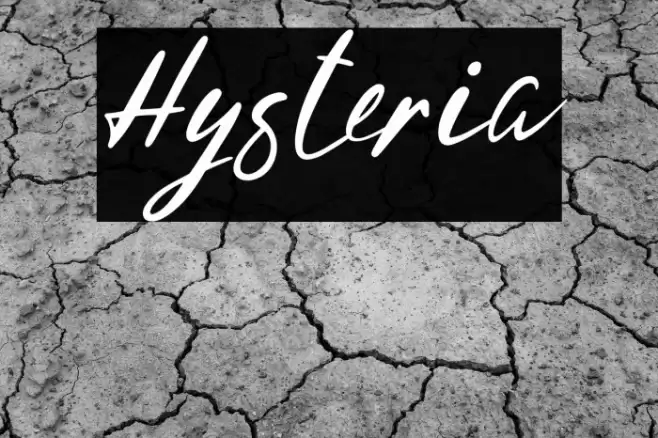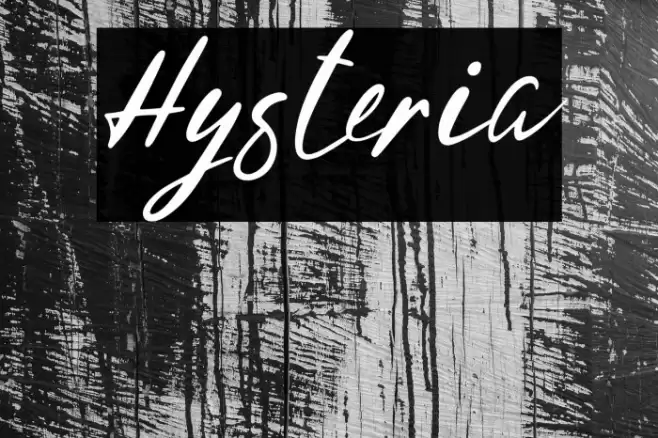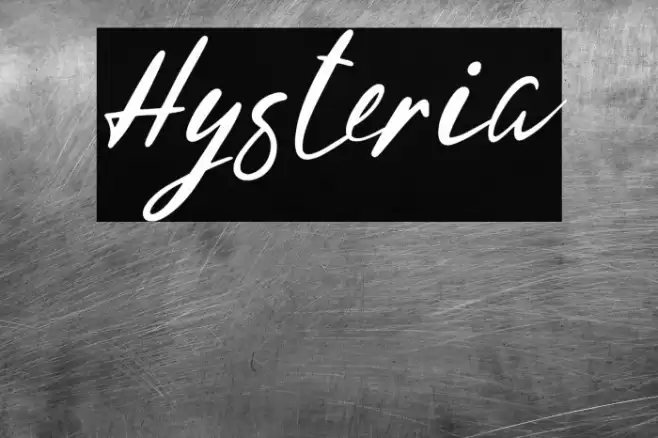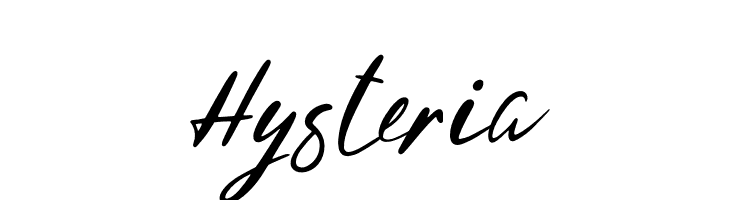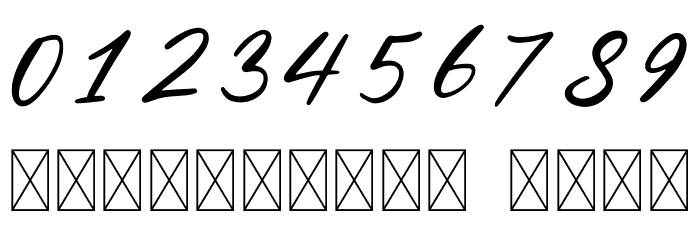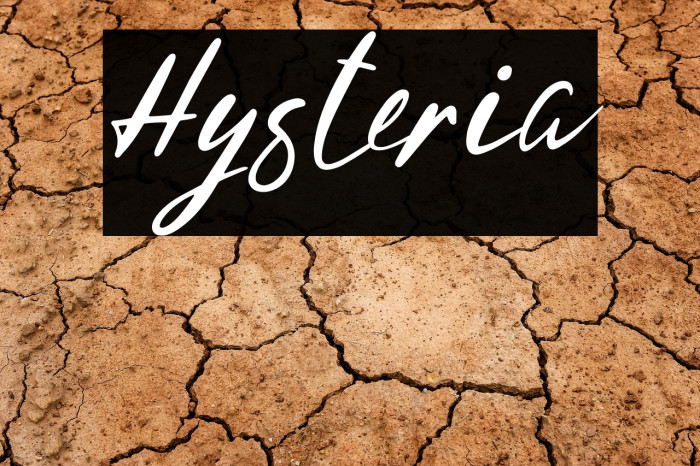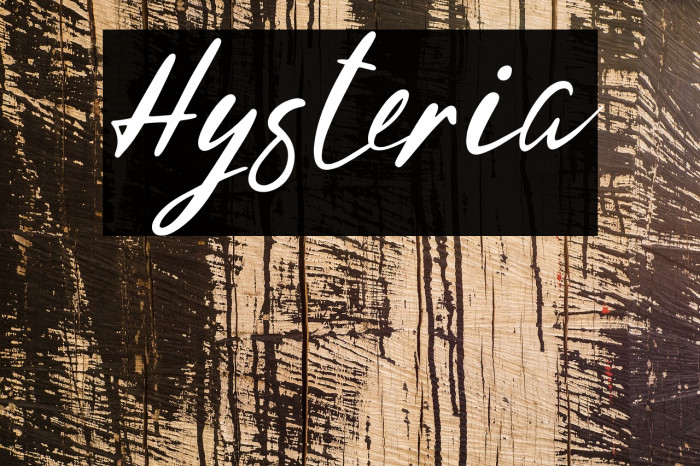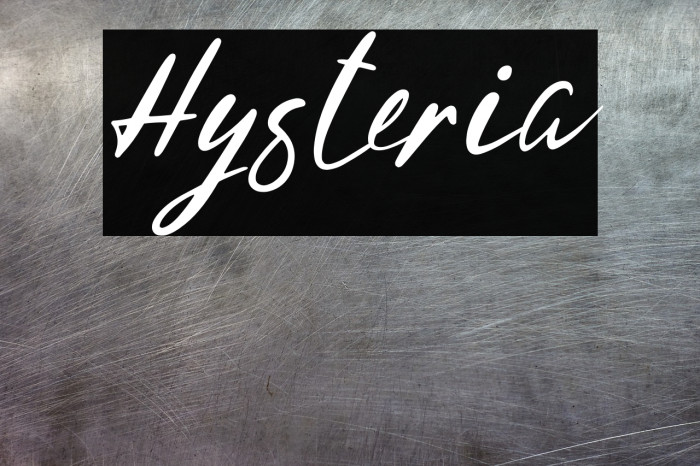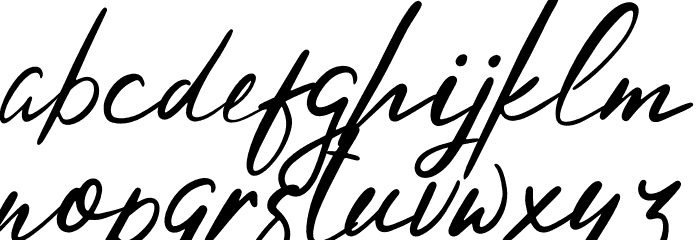
Hysteria Font
Hysteria Description
This font exudes a dynamic and energetic style with its fluid, cursive script. The characters are elegantly connected, creating a seamless flow that mimics natural handwriting. The uppercase letters are slightly more structured, providing a nice contrast to the more freeform lowercase letters. The numerals maintain the same fluidity, ensuring consistency throughout. This font is perfect for projects that require a personal touch, such as invitations or branding materials. The overall appearance is both sophisticated and approachable, making it versatile for various design needs.
A dynamic, cursive script font with fluid, connected characters from Uncategorized fonts.
- Proposed Projects: Ideal for invitations, branding, personal notes, and creative projects requiring a handwritten touch.
- Use Case: Logos, Invitations, Personal notes